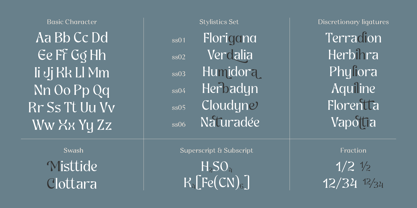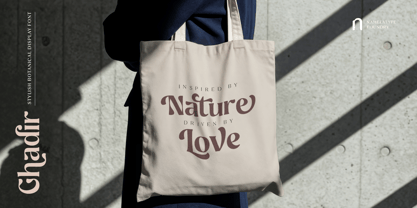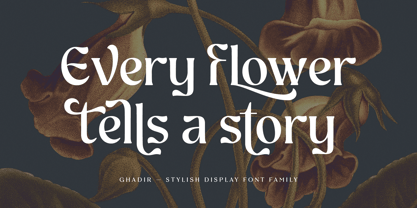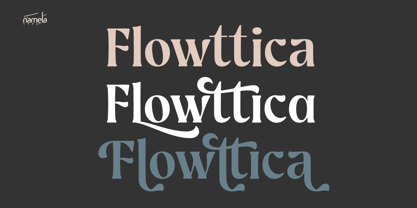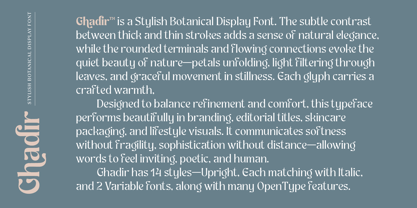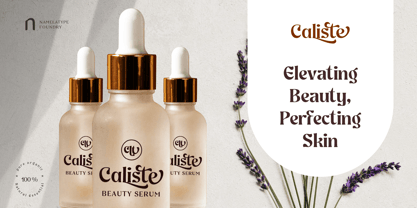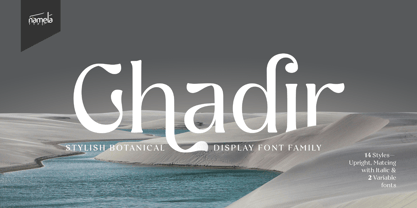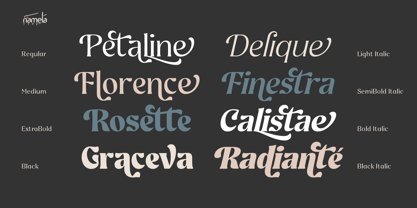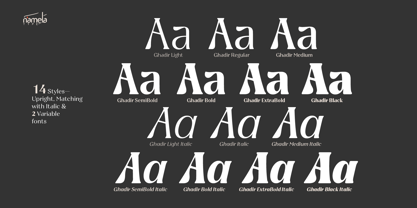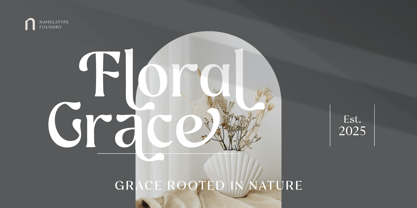
Ghadir
von NamelaType
Die Schriftfamilie Ghadir wurde von Nur Syamsi, Bustanul Arifin entworfen und von NamelaType veröffentlicht. Ghadir enthält 14 Stile und Familienpaketoptionen. Mehr über diese Familie
Ghadir is a Stylish Botanical Display Font. The subtle contrast between thick and thin strokes adds a sense of natural elegance, while the rounded terminals and flowing connections evoke the quiet beauty of nature—petals unfolding, light filtering through leaves, and graceful movement in stillness. Each glyph carries a crafted warmth, Designed to balance refinement and comfort, this typeface performs beautifully in branding, editorial titles, skincare packaging, and lifestyle visuals. It communicates softness without fragility, sophistication without distance—allowing words to feel inviting, poetic, and human. Ghadir has 14 styles—Upright, Each matching with Italic, and 2 Variable fonts, along with many OpenType features.
Designer: Nur Syamsi, Bustanul Arifin
Foundry: NamelaType
Ghadir